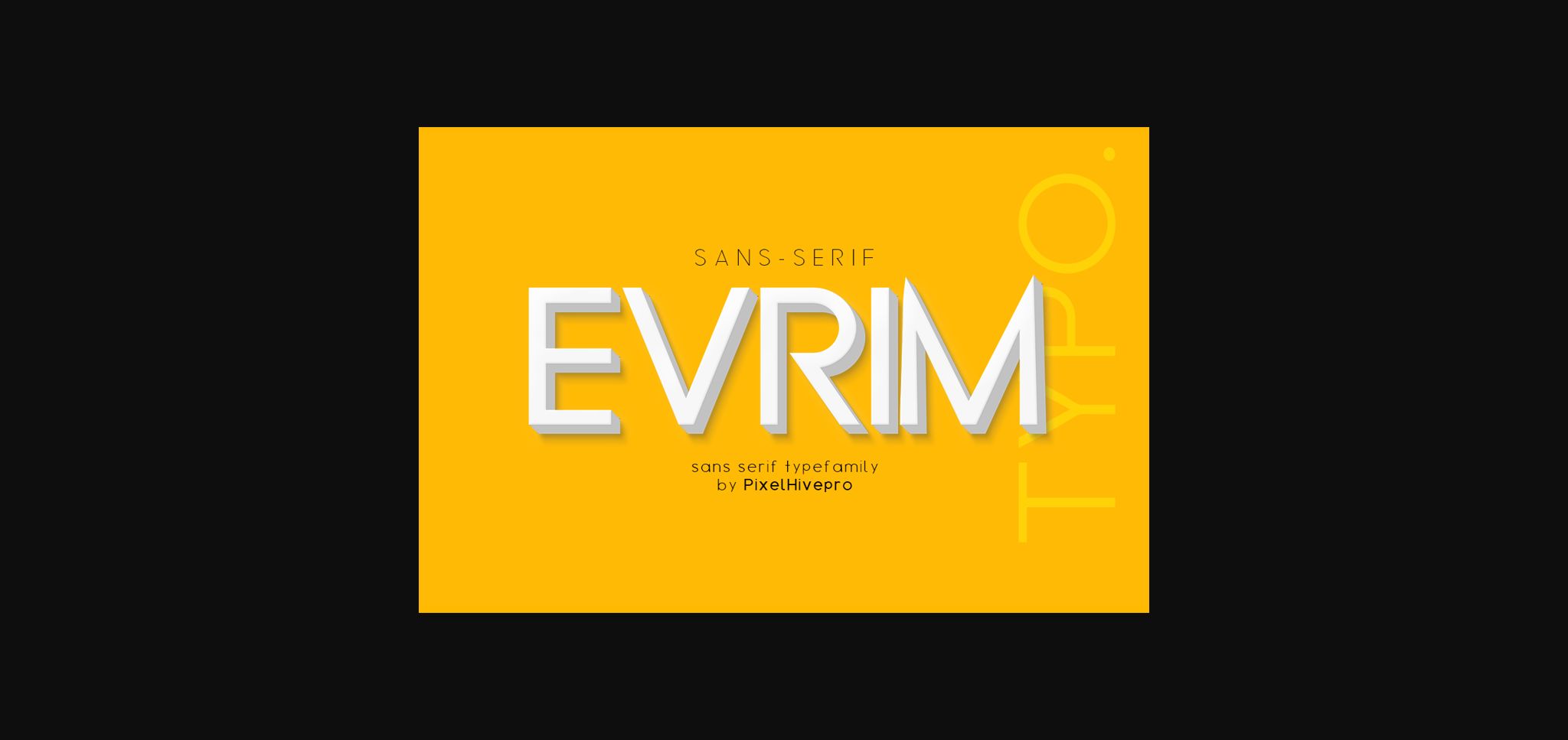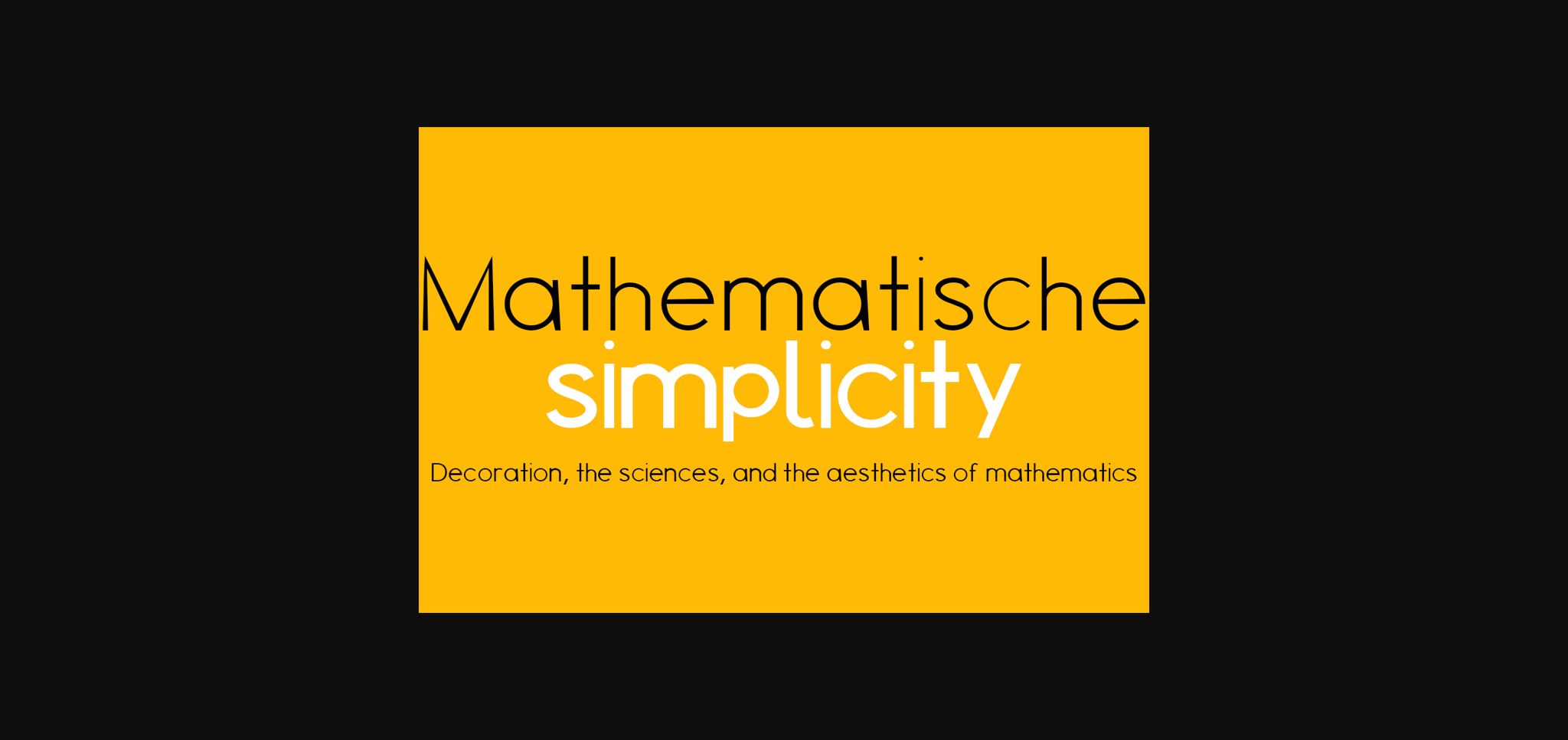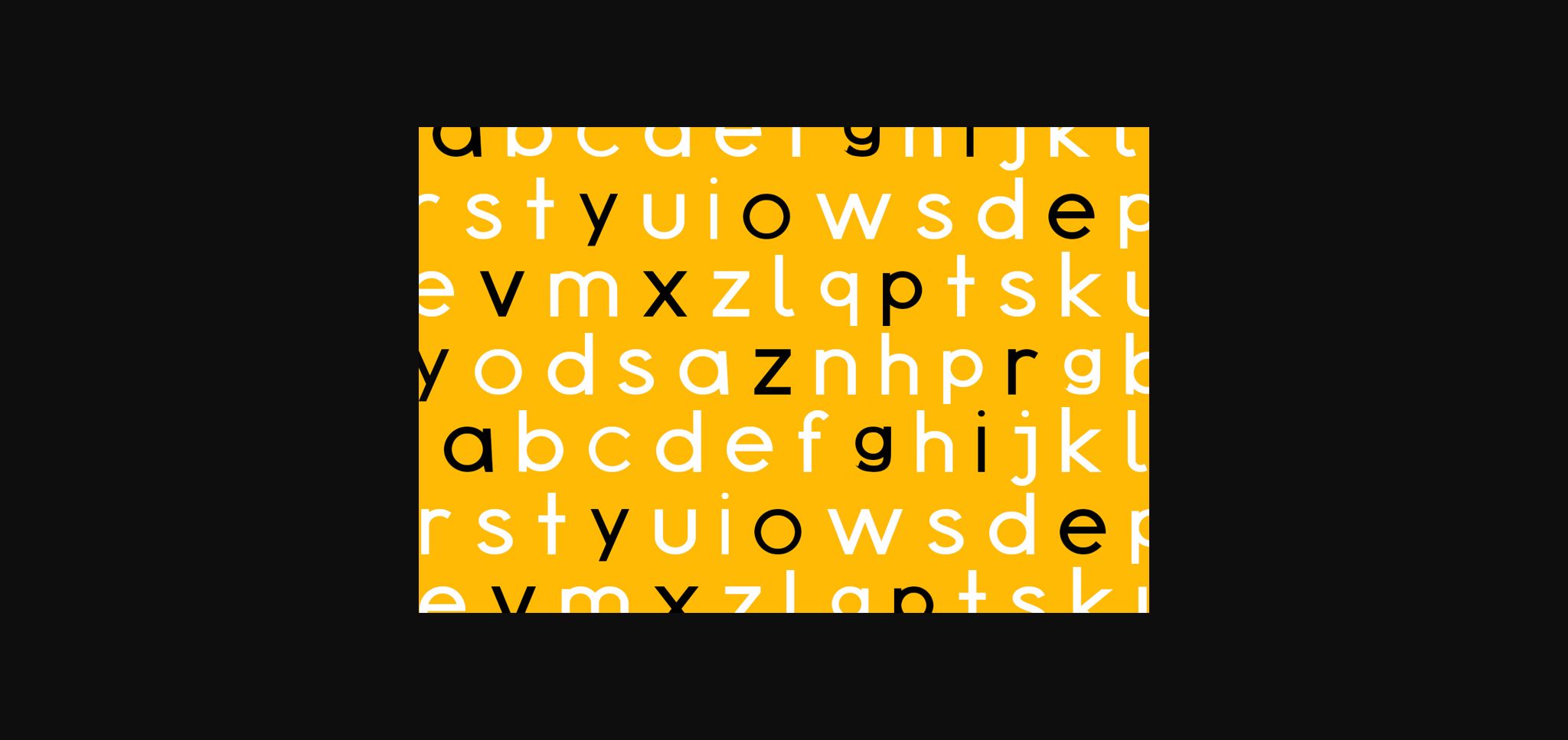
About Evrim Font
Evrim is a modern sans serif font, carefully handcrafted to become a true favorite. Clean and a little bit quirky, this font is the perfect fit for all of your logos, branding, social media, and crafty DIY projects.